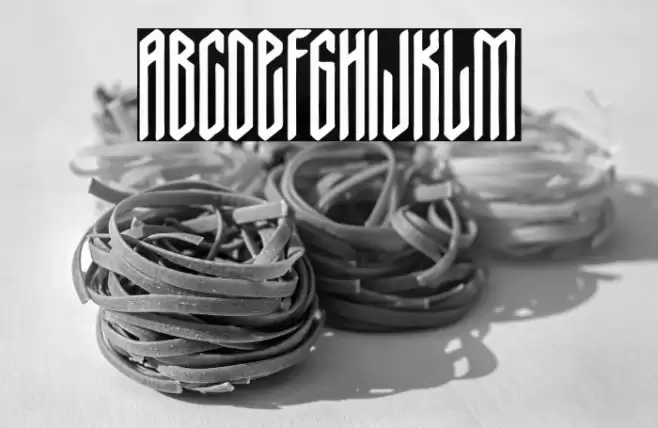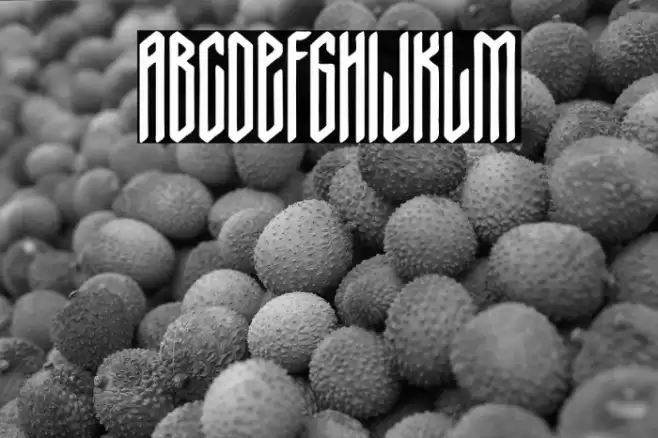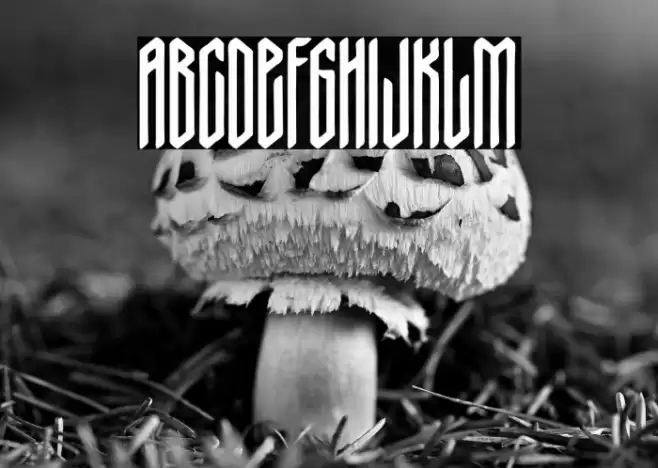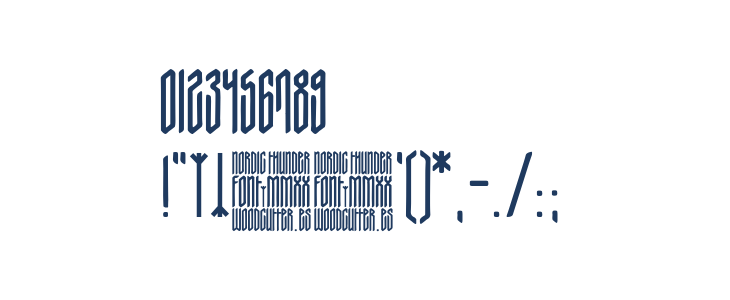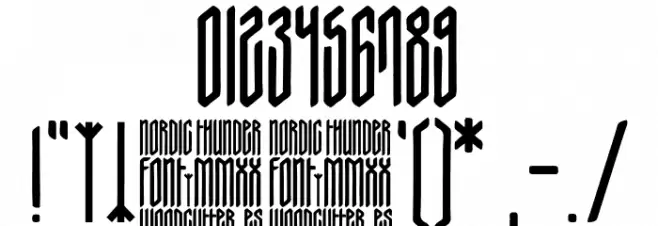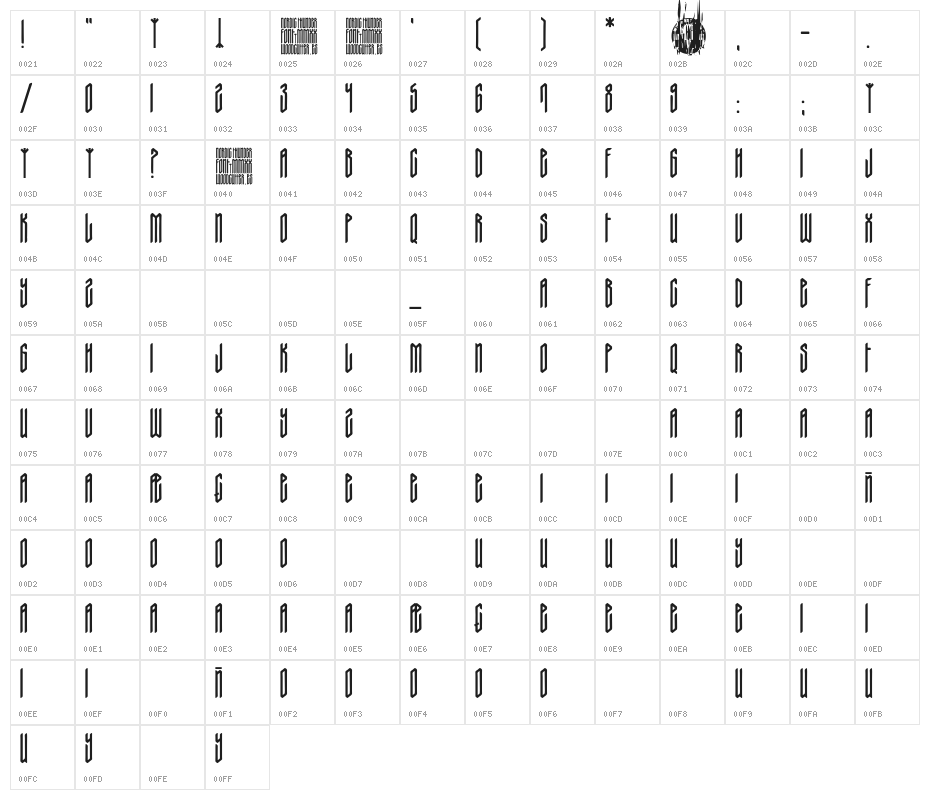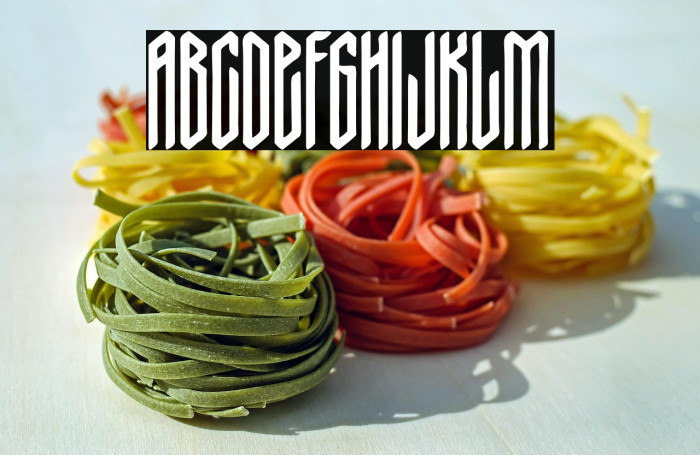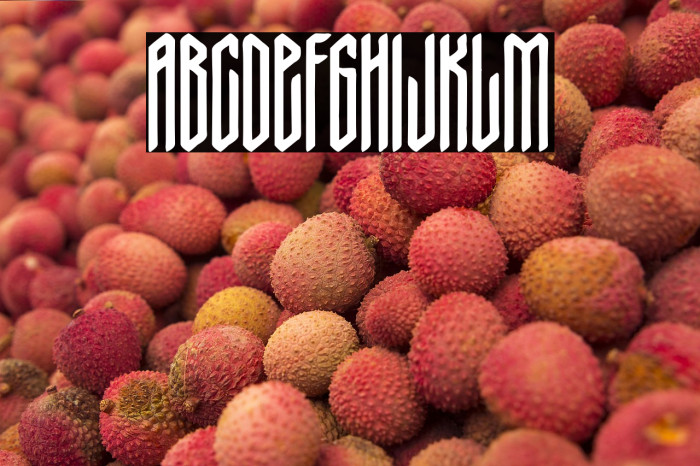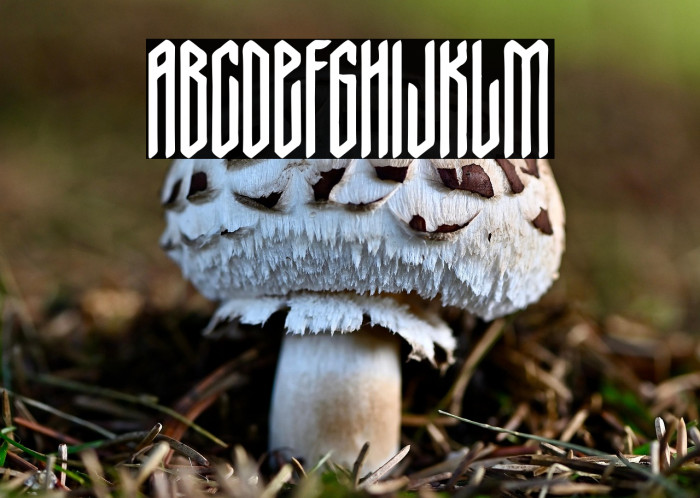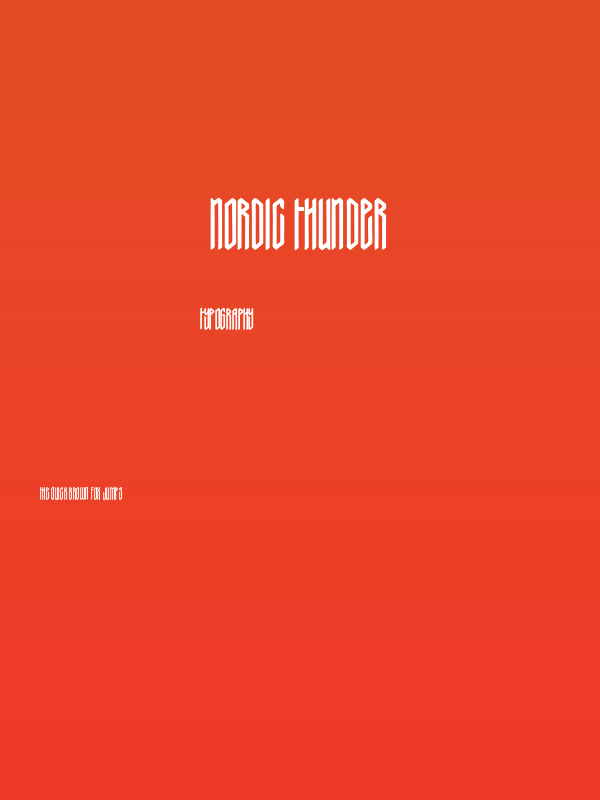
Nordic Thunder Font
Nordic Thunder Description
This font features a bold, elongated design with a distinctly modern and decorative style. The characters are tall and narrow, with sharp, angular edges that give it a striking appearance. The uppercase and lowercase letters maintain a consistent height, creating a uniform look across the text. Numbers and special characters follow the same design principles, ensuring cohesion throughout. The font's unique style is reminiscent of Nordic or Viking themes, making it ideal for projects that require a bold and adventurous aesthetic. Its high contrast and tight character spacing enhance its visual impact, making it suitable for headlines and logos.
A bold, elongated font with a modern, Nordic-inspired design from Uncategorized fonts.
- Font: Nordic Thunder
- Proposed Projects: Ideal for branding, posters, and any project requiring a bold, adventurous aesthetic.
- Character Spacing: Tight
- Overall Style: Modern, Decorative